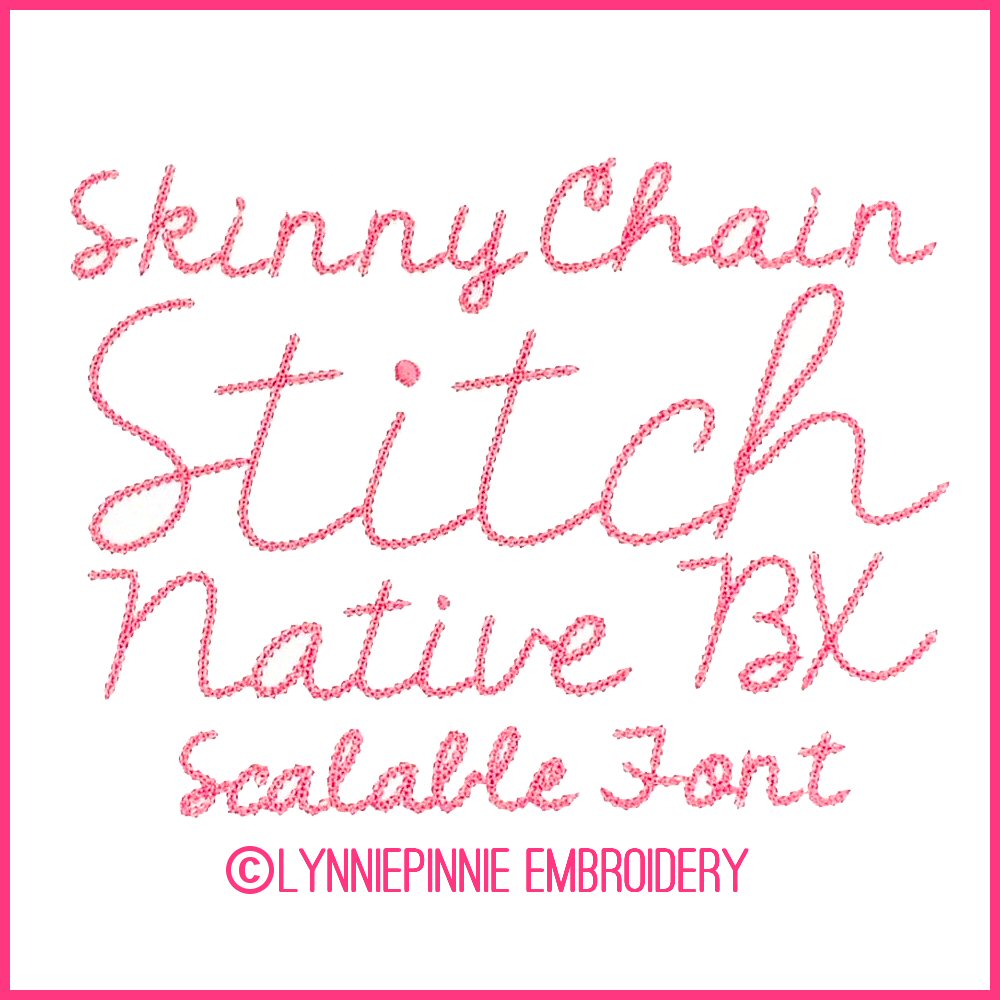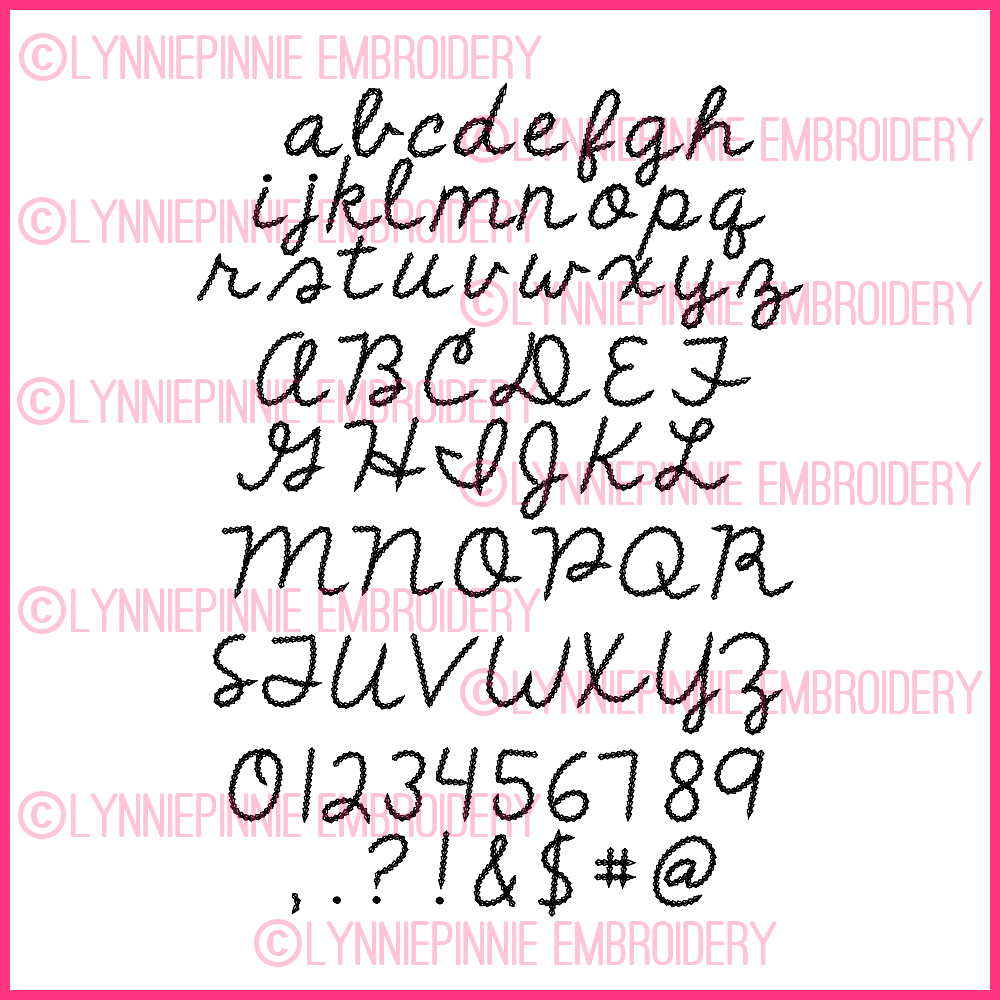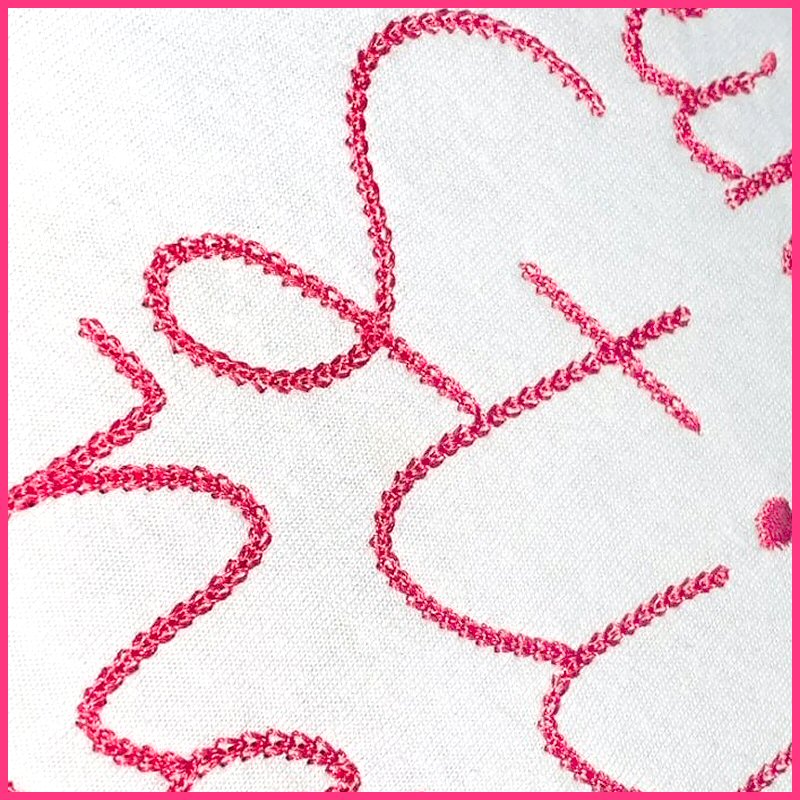
The Fighter Skinny Chain Stitch Font Uppercase & Lowercase Font DIGITAL Embroidery Machine File -- 5 sizes + Native BX Embroidery Font Scalable
This hand-stitch style script font makes a beautiful statement!
Uppercase, lowercase, number and punctuation in 5 sizes: